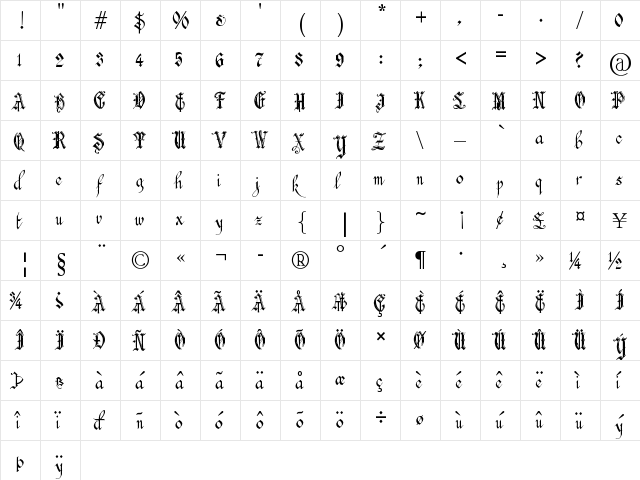
Blackstone_Hand Regular
| Designer | Michelle Widener, J. M. Bergling |
Design Context for Blackstone_Hand Typeface
Blackstone_Hand flows with the natural rhythm of handwritten lettering, making it ideal for designs that call for warmth and personal expression.